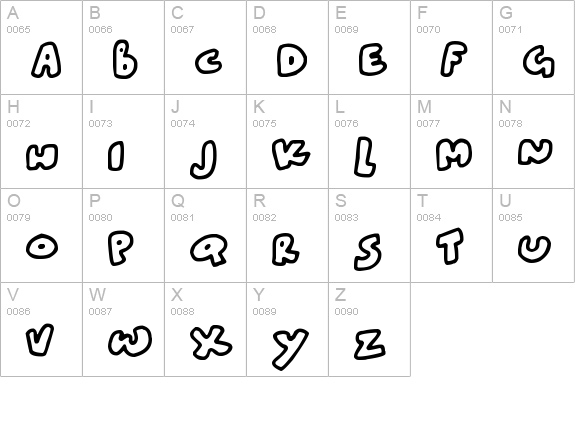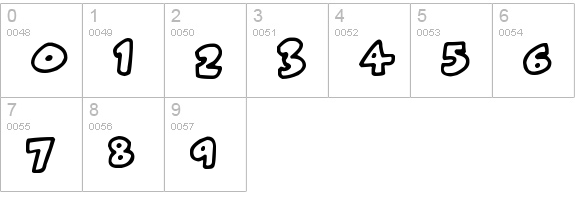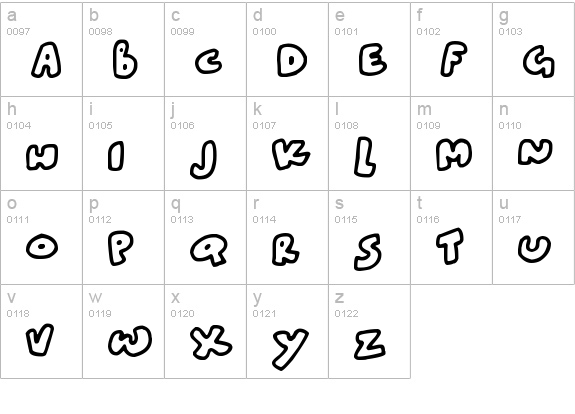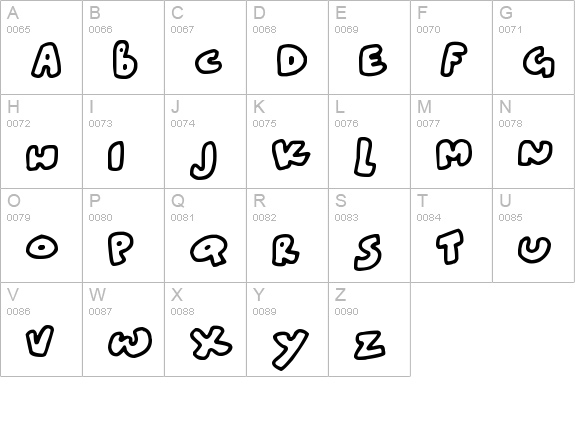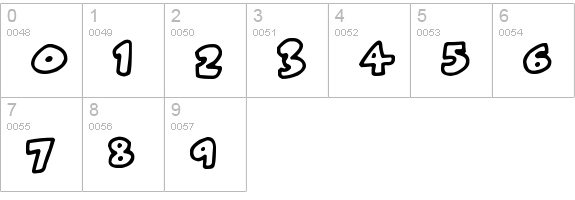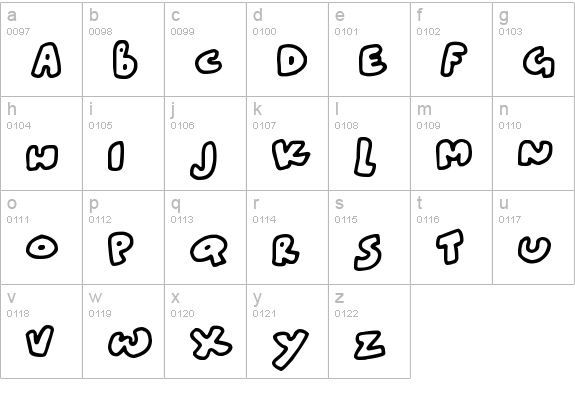
Blobtastics Font Details
Blobtastics is a free for personal use font in the Fancy > Comic category, designed by Darrell Flood. It has been downloaded 31 times and is available for Windows, Mac and Linux.
Introducing the whimsical and playful Blobtastics font, a truly unique typeface that is sure to make your designs stand out! This delightful font features soft, blob-like shapes that add a touch of fun and creativity to any project. Perfect for children's books, greeting cards, invitations, and more, Blobtastics is a versatile font that can be used for a wide range of design applications.